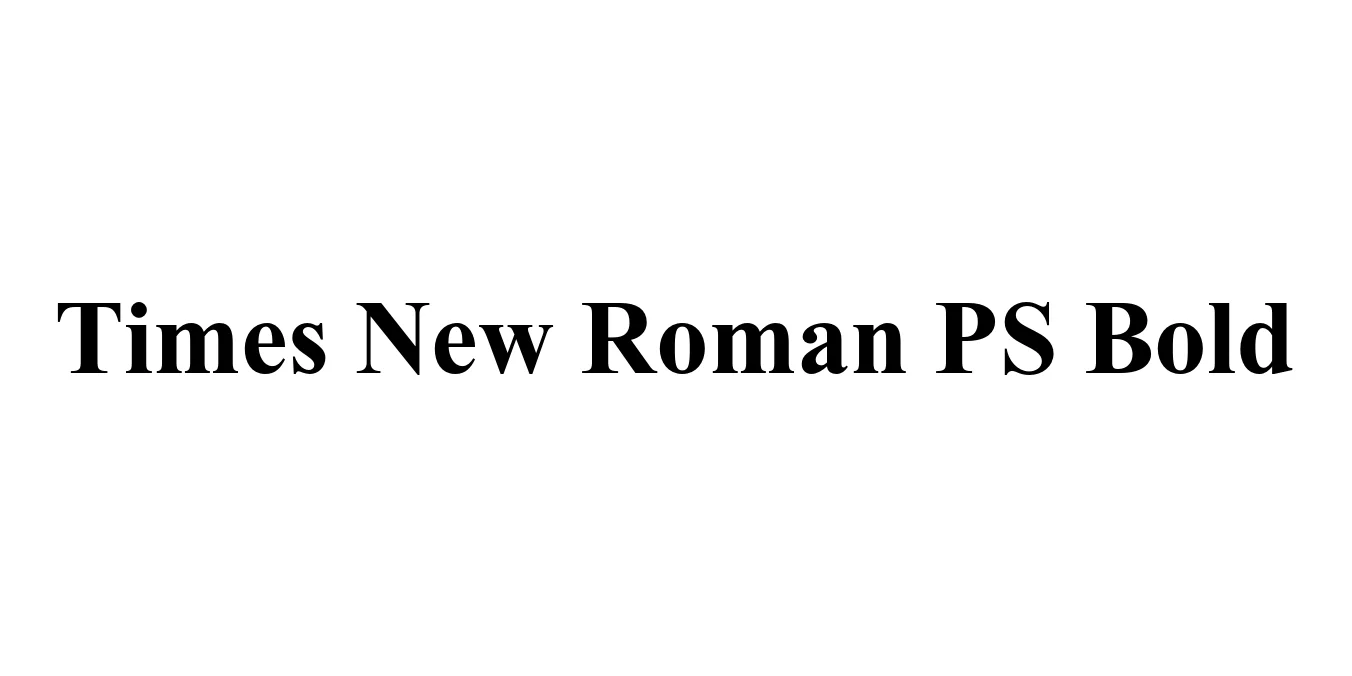
Times New Roman PS Bold
Designed by Stanley Morison and Victor Lardent
Times New Roman PS Bold is a heavyweight variant of the world-renowned serif typeface commissioned by the British newspaper The Times in 1931. The project was supervised by Stanley Morison and drawn by Victor Lardent, an artist from the newspaper's advertising department. It was designed to replace the spindly Victorian fonts used previously, aiming for better legibility and economy of space in narrow newspaper columns.
The PS Bold version specifically refers to the PostScript implementation of the typeface, which became a standard in the digital desktop publishing revolution of the 1980s. This bold weight offers a commanding presence while maintaining the classic proportions and sharp serifs that define the Times New Roman family, making it an essential tool for formal communication and authoritative print media.
Times New Roman PS Bold Best Uses
The industry standard for formal research, theses, and collegiate assignments.
Provides an authoritative and highly legible appearance for contracts and briefs.
Optimized for high-ink density and readability in column-based layouts.
Ideal for both headers and body text in non-fiction and classic literature.